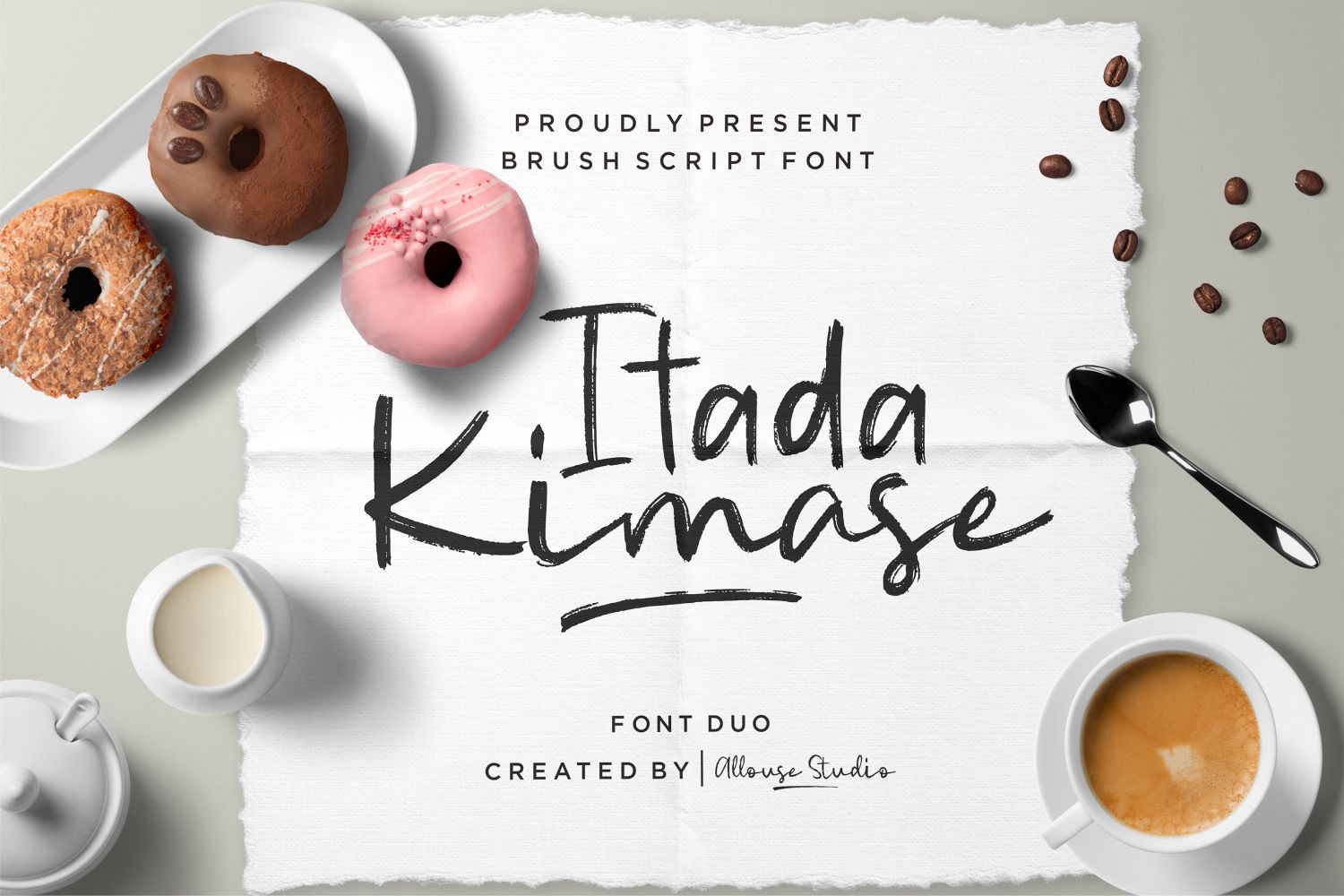
Itadakimase Font
Proudly Present, Itadakimase.
Itadakimase is a Brush Font With Duo Style.
Itadakimase is perfect for product packaging, branding project, megazine, social media, wedding, or just used to express words above the background.